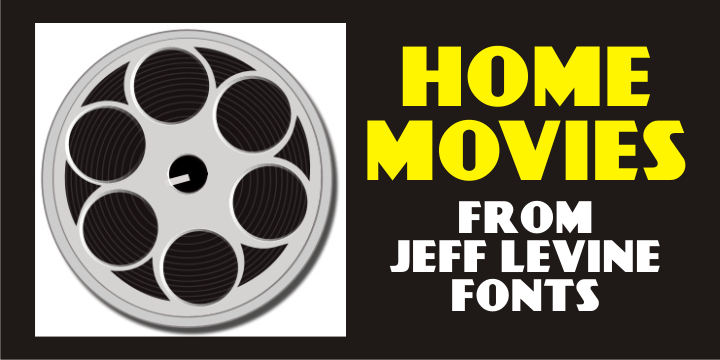
Home Movies
A set of cling vinyl letters and numbers for titling home movies or slides is the basis for Home Movies JNL. The set was made by the Clingtite Letters Company of Chicago and retailed for $2.95. It was advertised in many photographic publications of the 1950s.